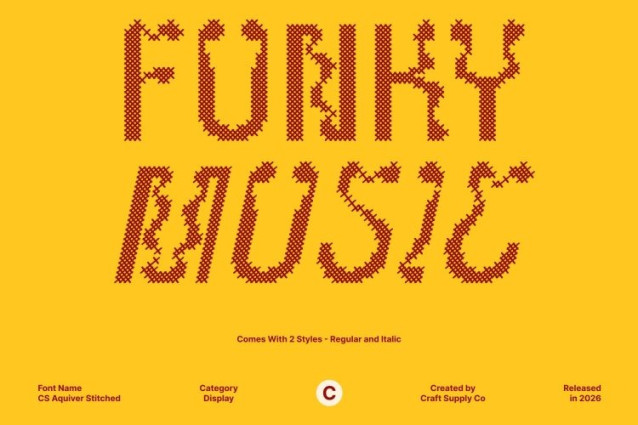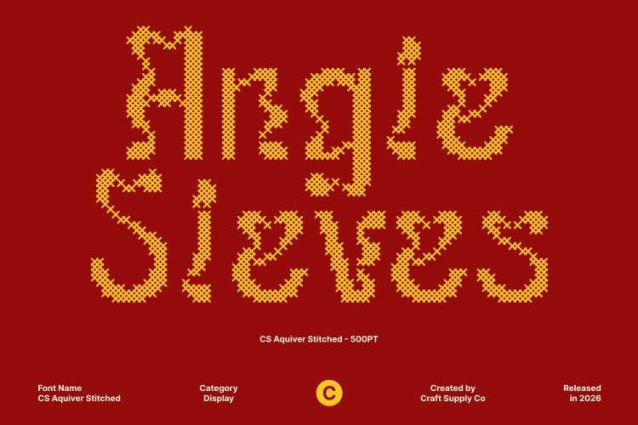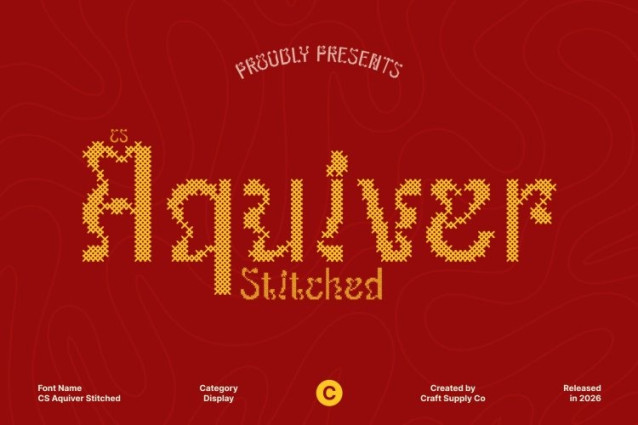
CS Aquiver Stitched Font
CS Aquiver Stitched Font  This is a vibrant psychedelic display font featuring bold, expressive letterforms filled with trippy character. Its swirling curves, fluid distortions, and unconventional shapes capture the energetic spirit of psychedelic art, creating a visually dynamic and unforgettable style. Enhanced with a stitched effect inspired by thread sewn or embroidered on fabric, this version adds a handcrafted texture that brings warmth and depth to its bold visual identity.
Dynamic Shapes with Embossed Stitch Detail
The flowing, distorted forms of this font are enriched by a distinctive cross-shaped stitch pattern that creates an embossed and structured texture across each character. This stitched detail introduces a tactile, fabric-like appearance that contrasts playfully with the psychedelic movement of the letterforms, adding a classic, nostalgic, relaxed, and warm impression to the font’s vibrant personality.
Unique, Artistic, and Visually Experimental
With its unconventional structure, asymmetrical curves, and expressive rhythm, this font embodies creativity and experimentation. The combination of psychedelic motion and stitched texture produces a unique artistic character that feels both energetic and handcrafted, making it perfect for projects that embrace individuality and bold design exploration.
Perfect for Creative and Experimental Projects
This font is ideal for music posters, album covers, festival graphics, experimental branding, editorial layouts, and artistic promotional materials. It also works beautifully for craft-inspired visuals and playful design themes that seek a distinctive, textured aesthetic.